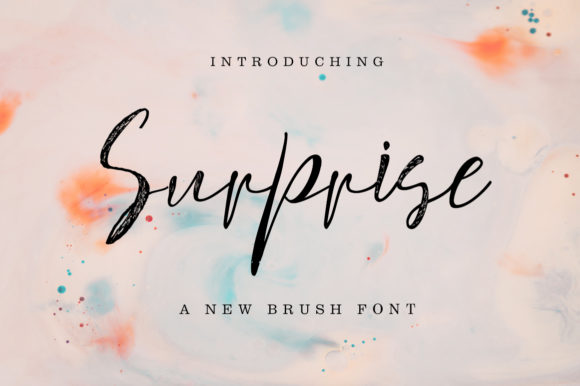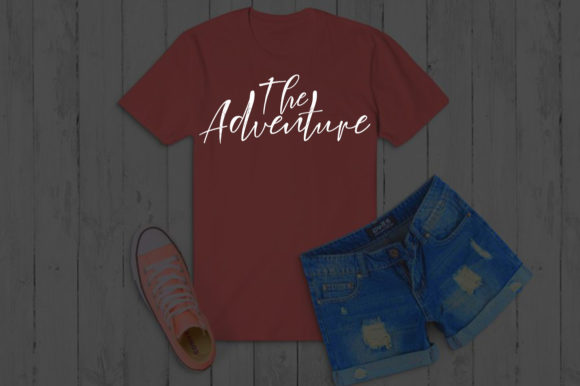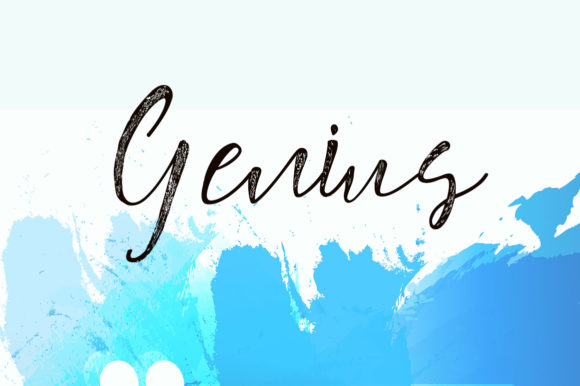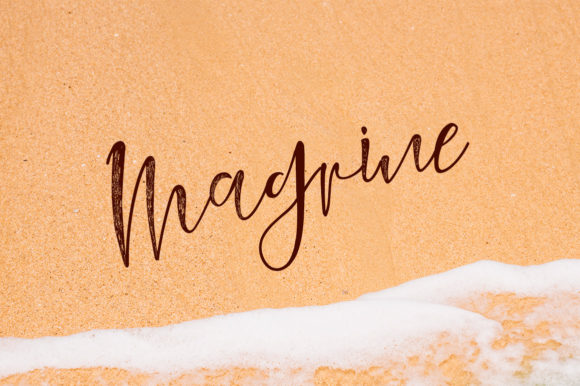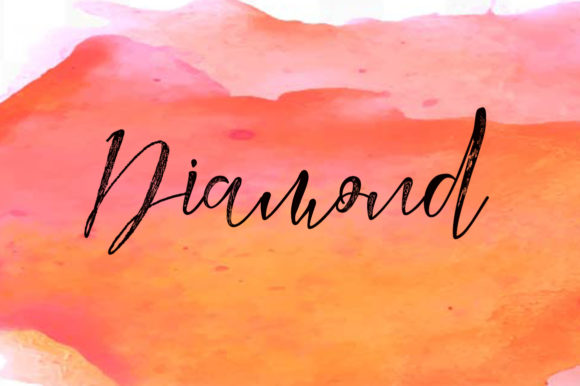
Surprise Font
About Surprise Font
Inspired by classic calligraphy, Surprise is a beautiful and light handwritten font. It will effortlessly create modern and sophisticated designs.